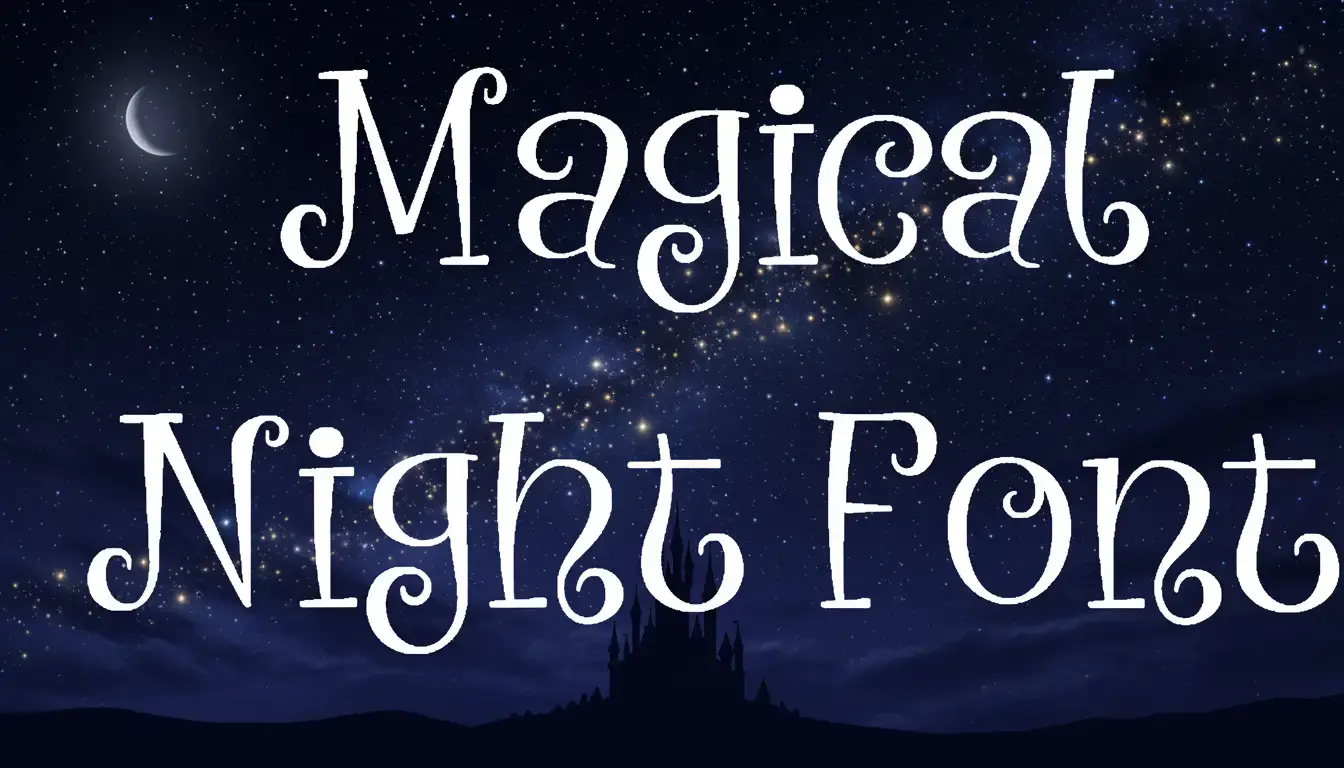
Magical Night Font
Magical Night
What You Can Type With Magical Night
You get every letter from A to Z in both cases and all the numbers from 0 to 9, which means Magical Night can handle full sentences, dates and prices. Common punctuation such as &, !, ? and @ is included as well. It also has the accented letters you need for Spanish, French, Portuguese and Italian.
Where Magical Night Works Best
Think of Magical Night for posters, logos and eye-catching headlines. Use it for one standout word or headline and let simpler fonts handle the rest.
Does Magical Night support accented letters?
Yes. Magical Night includes the accented letters needed for Spanish, French, Portuguese and Italian, so it works for more than just English.